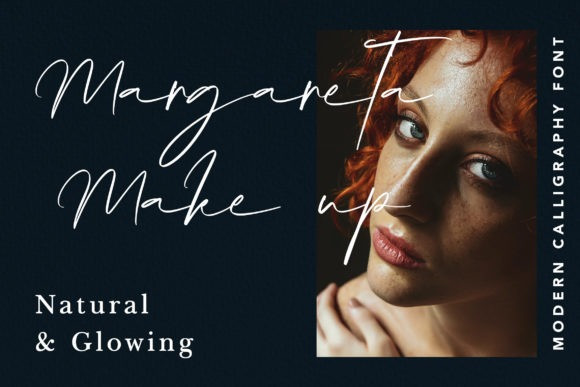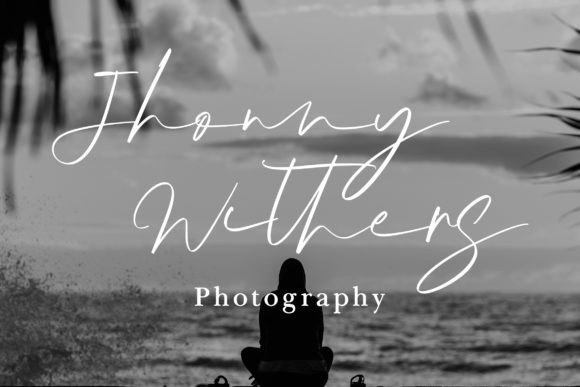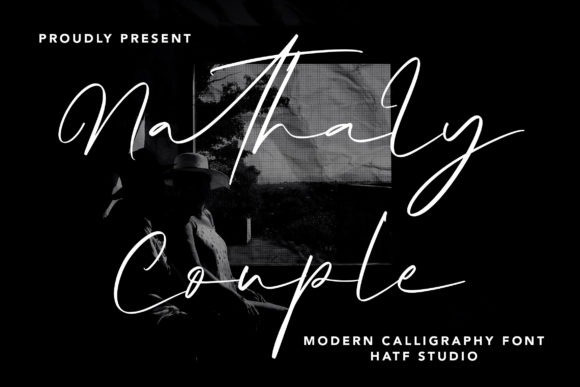
Nathaly Couple Script Font
Nathaly Couple is an elegant script font with a contemporary atmosphere and impeccable form, inspired by timeless classic calligraphy. Not too thin and not too thick, balanced and varied, this font was designed to enhance the beauty of your projects.